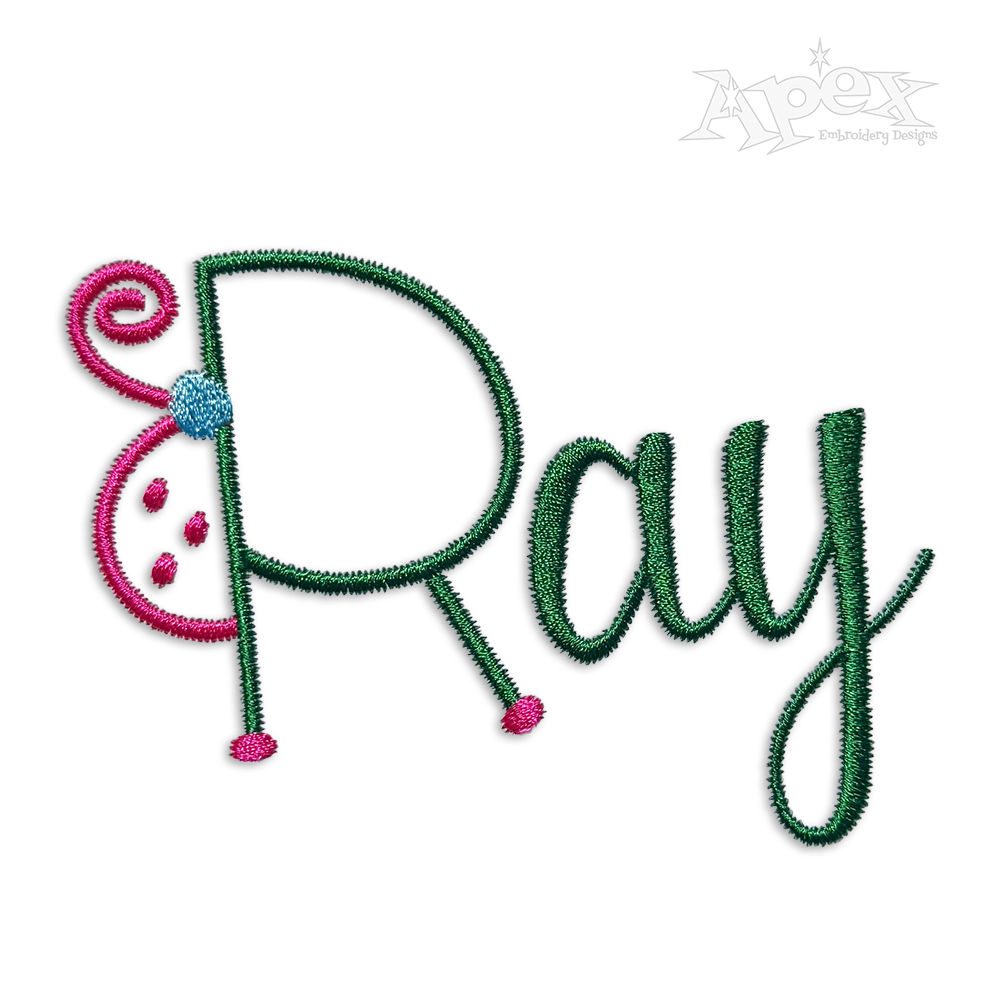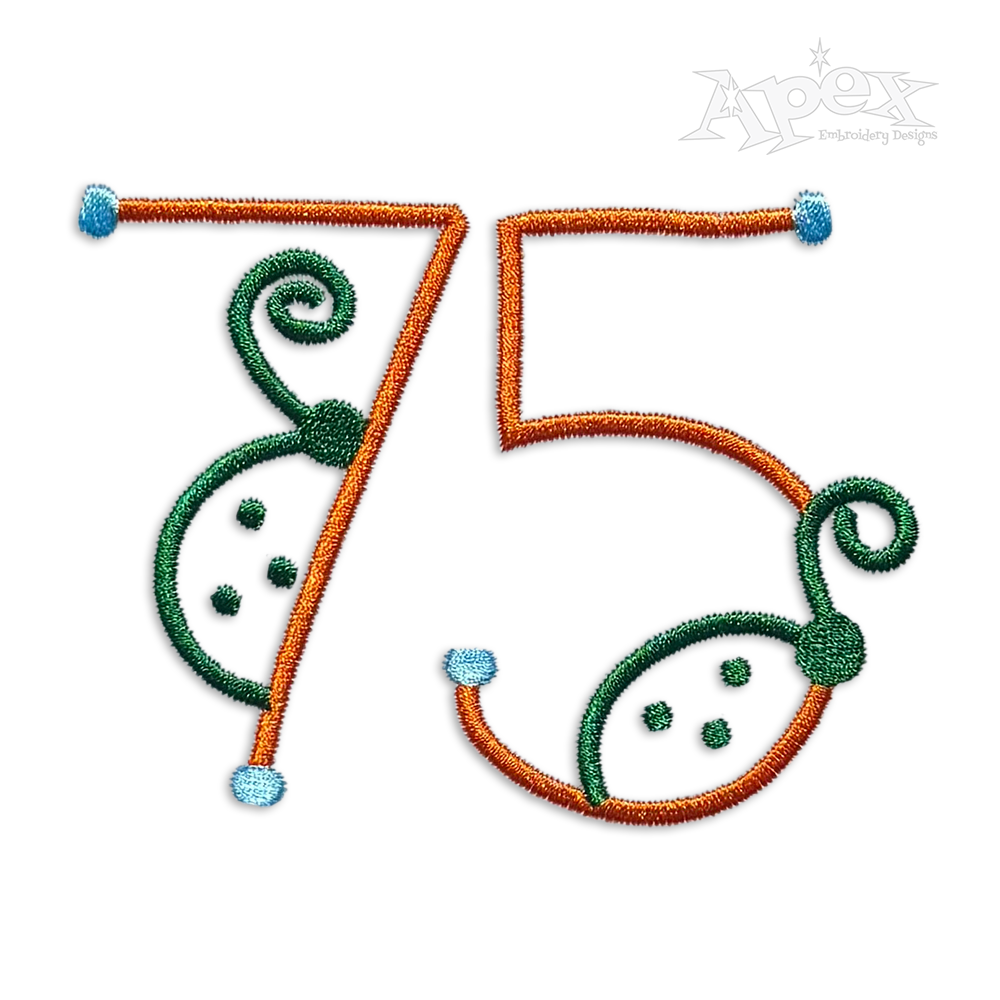
Ladybug Embroidery Font
Captured with the sunlit innocence of a summer morning in the garden, the Ladybug Embroidery Font brings pure delight to every stitch. Inspired by the charming, gentle presence of nature’s luckiest garden visitor, this whimsical alphabet balances clean, plump letterforms with joyful personality. Whether stitching personalized keepsakes for a newborn or adding a touch of sunshine to garden party accessories, this design radiates warmth, playfulness, and artisanal care.
Ladybug Embroidery Font Craft & Letterform Details
Every glyph within the Ladybug Embroidery Font is digitized with an unwavering commitment to smooth, puckering-free needle paths and luscious tactile depth. The letterforms are shaped with generous, softly rounded curves that mirror the gentle contours of a ladybug’s shell. Rich satin stitch columns are calibrated with thoughtful pull compensation and balanced underlay to ensure immaculate thread coverage, whether stitched onto crisp woven cotton, airy linen, or soft baby knits.
Transitions between strokes flow effortlessly, allowing your embroidery machine to glide from stem to curve without unnecessary thread jumps or abrasive tie-offs. The result is an alphabet that feels joyful and alive—offering a hand-embroidered aesthetic with the pristine precision of modern artisan digitizing.